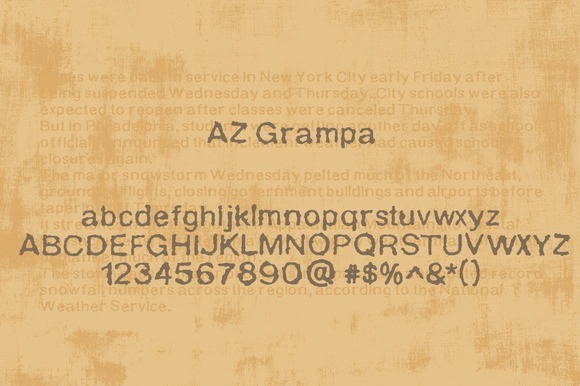
Introducing AZ Grampa Font: The Ultimate Vintage Typeface for Designers and Crafters
Are you looking for a font that can add a touch of nostalgia and vintage charm to your designs? Look no further than AZ Grampa Font. This unique typeface has an old vintage look, reminiscent of a typewriter, making it the perfect choice for creating designs that evoke a sense of history and classic style.
The Characteristics of AZ Grampa Font
AZ Grampa Font has a distinct, distressed look that sets it apart from other fonts. Its vintage aesthetic is characterized by:
- Wear and tear: The font has a worn, aged look, as if it’s been used on a typewriter for years.
- Distressed edges: The letters have rough, uneven edges, giving them a handmade, imperfect feel.
- Classic style: The font’s design is inspired by traditional typefaces, with a timeless look that’s both nostalgic and sophisticated.
Why Designers and Crafters Love AZ Grampa Font
AZ Grampa Font is a versatile typeface that can be used in a wide range of design projects, from crafting and scrapbooking to graphic design and digital art. Here are just a few reasons why designers and crafters love this font:
- Vintage charm: AZ Grampa Font adds a touch of nostalgia and vintage charm to any design, making it perfect for projects that require a classic, timeless look.
- Easy to read: Despite its distressed look, AZ Grampa Font is surprisingly easy to read, making it a great choice for body text as well as headlines.
- Highly versatile: This font can be used in a wide range of design projects, from digital art and graphic design to crafting and scrapbooking.
How to Use AZ Grampa Font in Your Designs
AZ Grampa Font is easy to use and can be incorporated into your designs in a variety of ways. Here are a few ideas to get you started:
- Pair it with other vintage fonts: Combine AZ Grampa Font with other vintage-inspired fonts to create a unique, layered look.
- Use it for headlines and titles: AZ Grampa Font is perfect for headlines and titles, where its distressed look can really make an impact.
- Add it to your digital art: Use AZ Grampa Font to add a touch of nostalgia and vintage charm to your digital art projects.
Tips and Tricks for Getting the Most Out of AZ Grampa Font
Here are a few tips and tricks to help you get the most out of AZ Grampa Font:
- Experiment with different sizes: AZ Grampa Font looks great in a variety of sizes, from small body text to large headlines.
- Try it with different colors: The distressed look of AZ Grampa Font works well with a range of colors, from muted earth tones to bright, bold hues.
- Use it to create a sense of texture: The worn, aged look of AZ Grampa Font can be used to create a sense of texture and depth in your designs.
AZ Grampa Font is a unique and versatile typeface that’s perfect for designers and crafters looking to add a touch of vintage charm to their designs. With its distressed look and classic style, this font is sure to become a favorite in your design arsenal. So why not give it a try and see how AZ Grampa Font can elevate your designs to the next level?